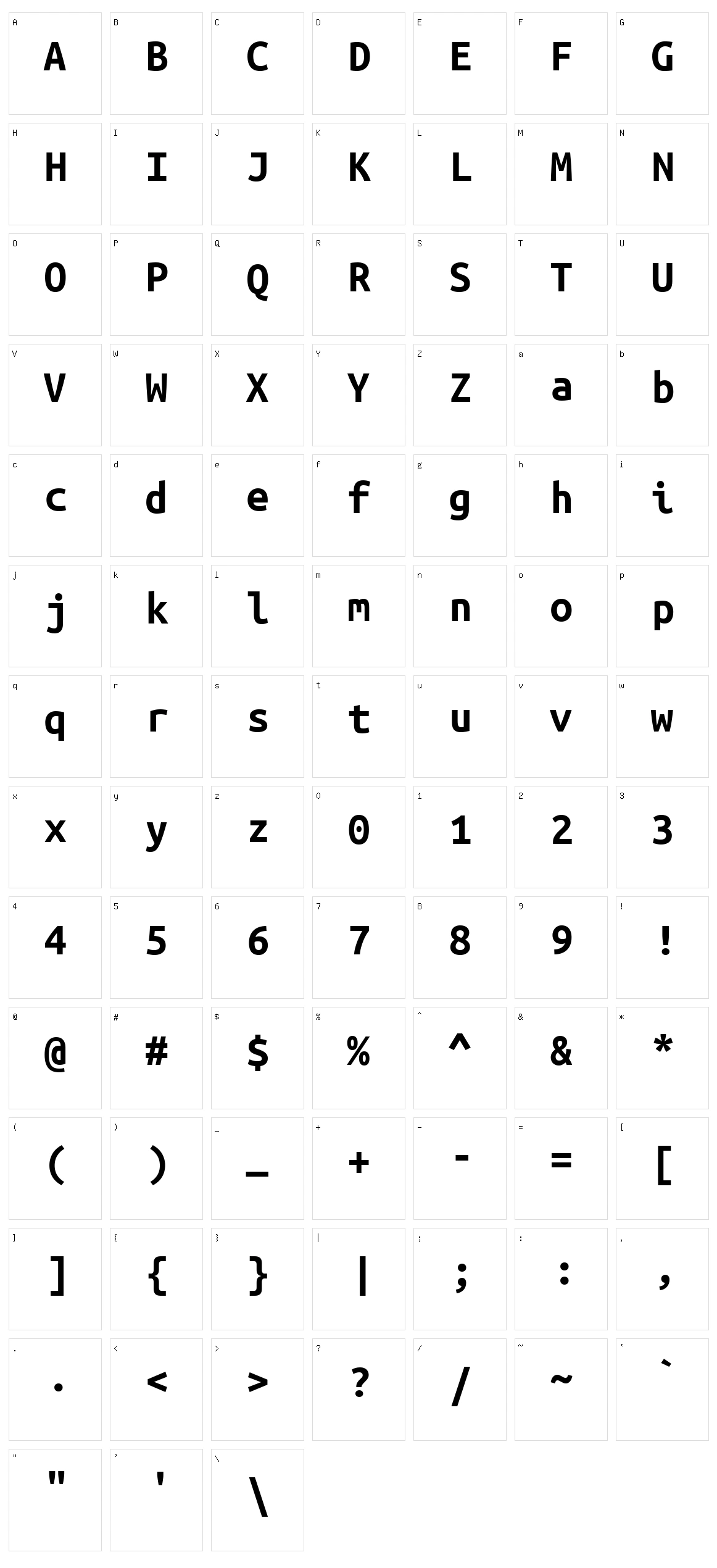
The free font Ubuntu Mono is carefully designed by Dalton Maag, showcasing a thoughtful balance of creativity and usability and falls under the Fixed width font style. When you download the ZIP file, it contains only 472.48 KB of font files, making it lightweight and quick to download. Please review the license details below to understand permitted usage and distribution rights. If license information is not available, we recommend using this font for personal projects only or contacting the author directly for commercial usage permissions.